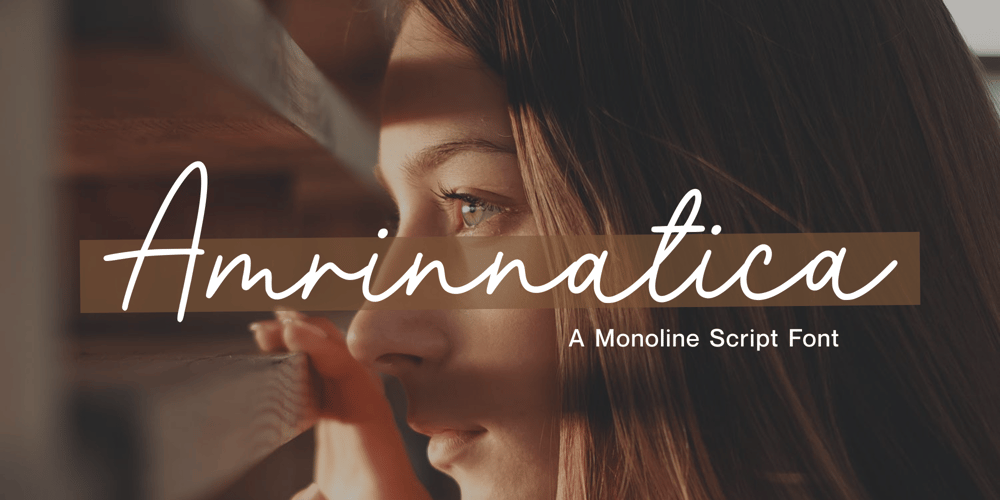
Amrinnatica
Amrinnatica font
Amrinnatica Font Family was designed by Fachrizal Yusuf and published by Allouse Studio. Amrinnatica contains 1 styles and family package options. Proudly Presenting, Amrinnatica A Monoline Script Font.Amrinnatica is perfect for any titles, logo, product packaging, branding project, megazine, social media, wedding, or just used to express words above the background.Amrinnatica also come with Multi-Lingual Support.Enjoy the font, feel free to comment or feedback, send me PM or email. Thank You!